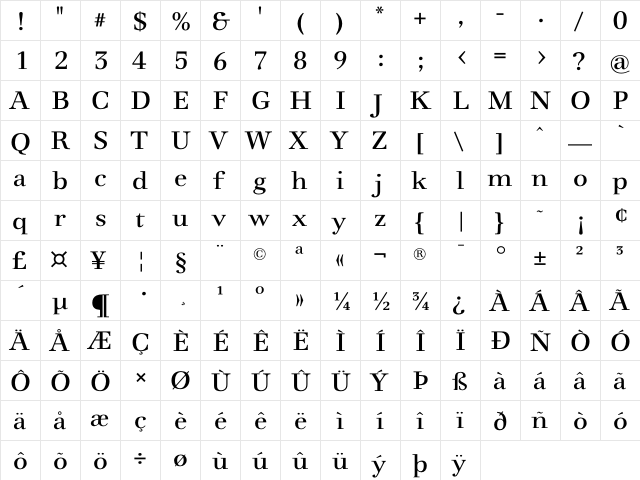
Dedica DaMa Regular
Design Context for Dedica DaMa Typeface
Dedica DaMa offers clean, dependable letterforms without strong stylistic allegiance, making it a practical choice for designers who need flexibility.
Pro Tip: Pair Dedica DaMa with a font of contrasting weight or personality to build a more expressive typographic hierarchy.